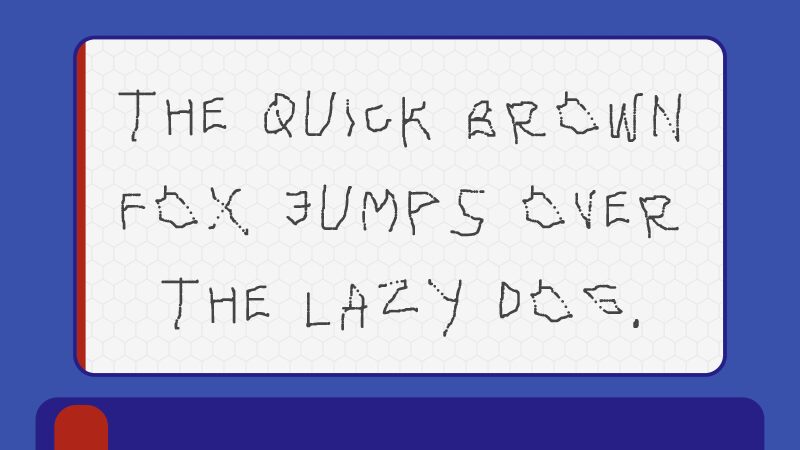
Magnetic Drawing
Magnetic Drawing font is a school-style script with light lines that make it feel modern and impressive. Designed by GGBotNet, the letters look organic, eccentric, whimsical, abstract, and artistic. This free handwriting font was inspired by children’s growing experience and how they practice using magnetic pen drawing boards.
A contemporary font with many potential use cases in creative projects such as posters, flyers, logos, packaging designs (soap or food items), branding materials for schools/colleges/universities/kindergartens/zoo parks or young copywriting agencies.